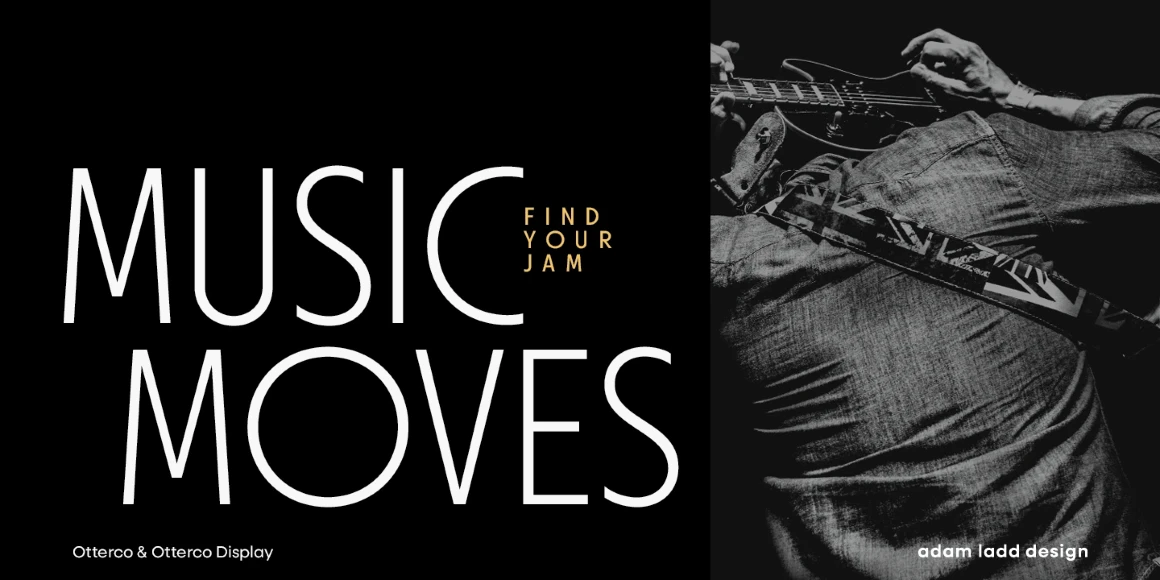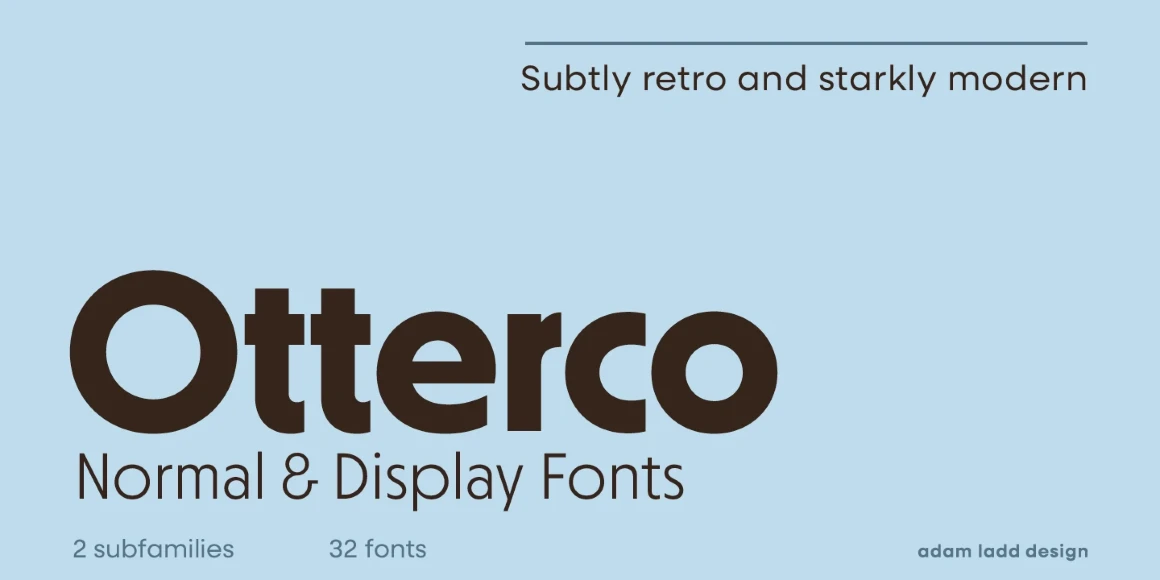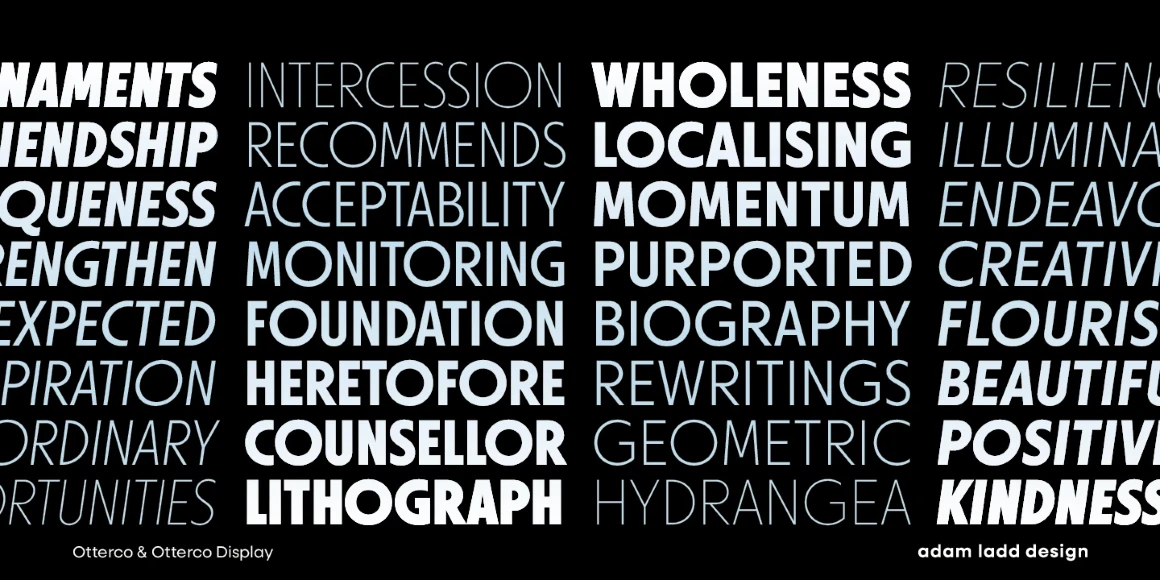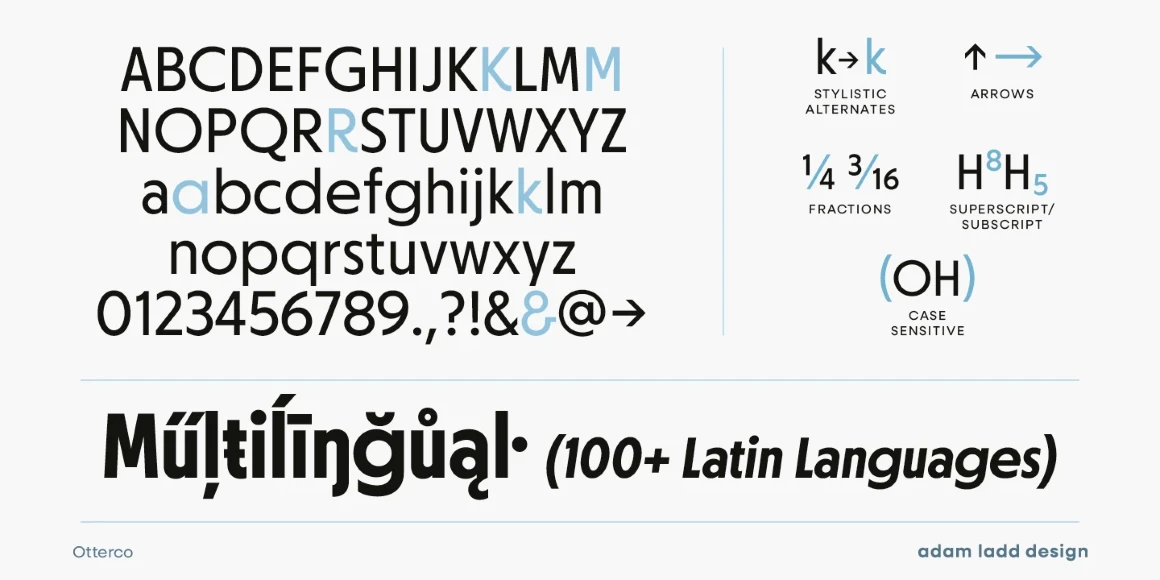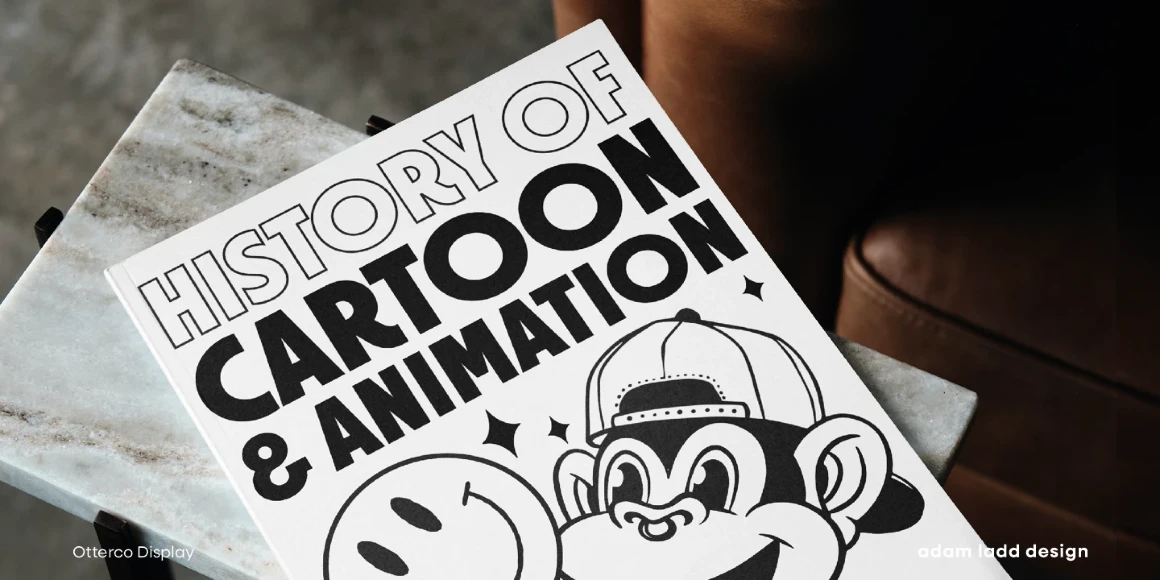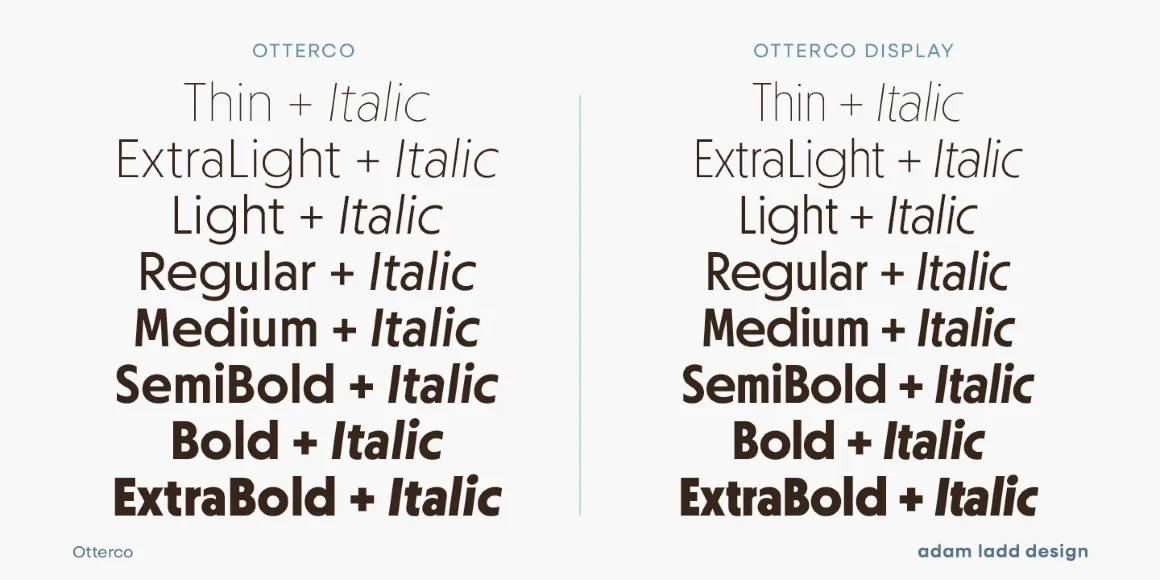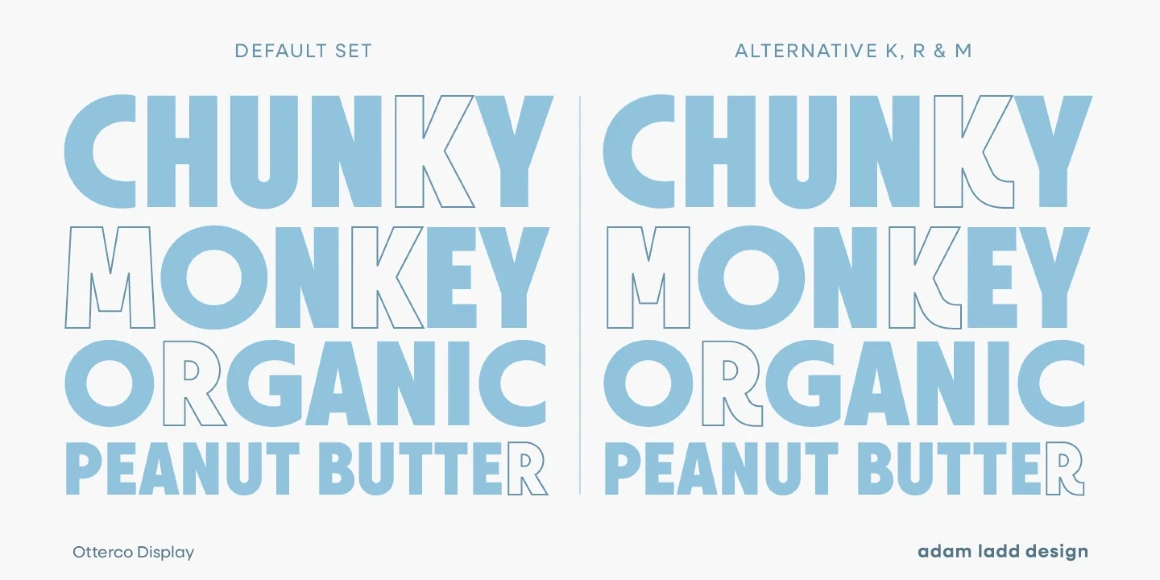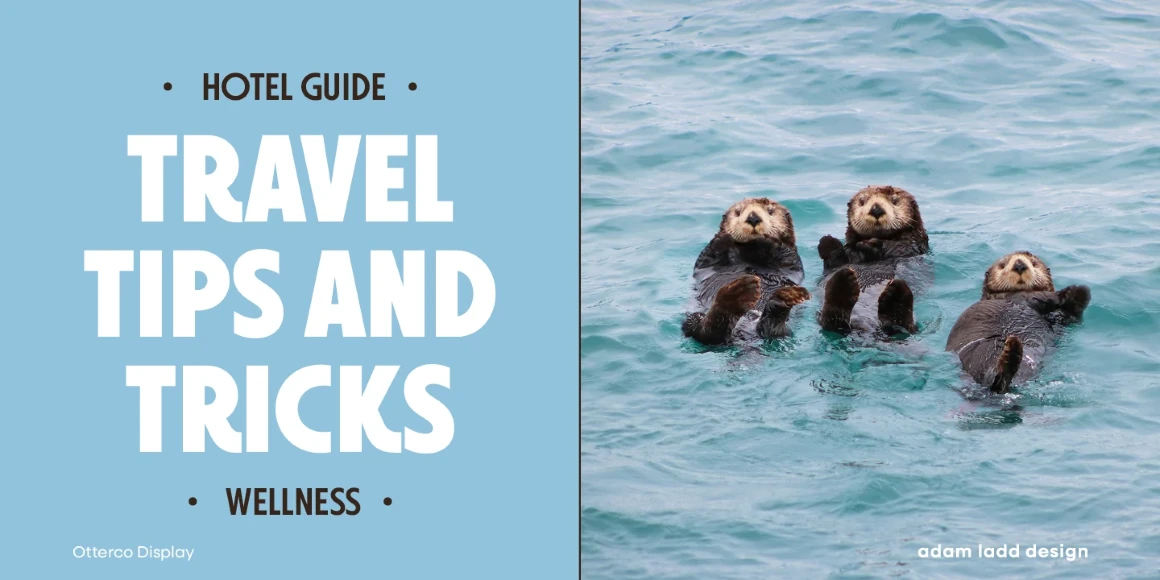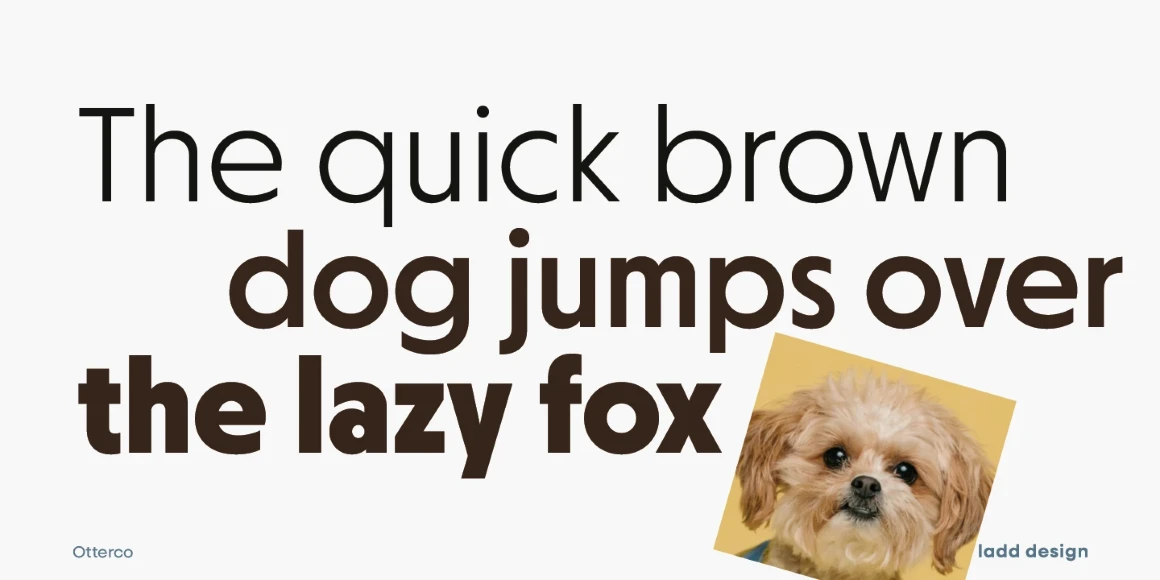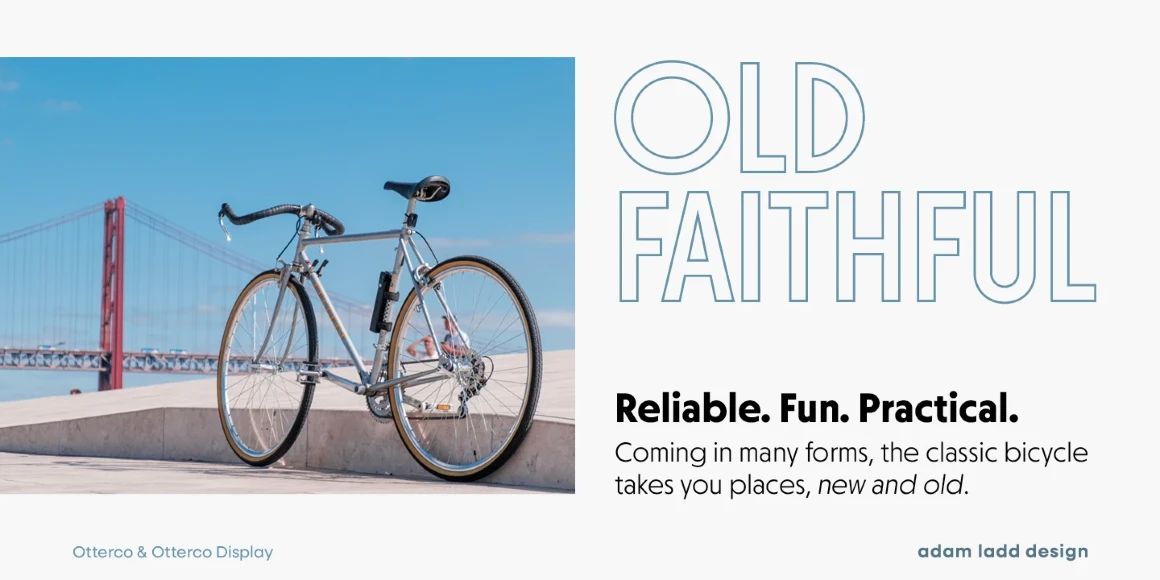
Otterco
By Adam Ladd
Otterco is a theatrical geometric sans in the spirit of the early 20th century. The design leans toward the subtly retro and starkly modern qualities that give it drama and panache. Otterco Display has a nuanced rhythm created by varied round and narrow characters combined with tighter spacing — useful for fierce, attention-getting headlines. On the other hand, Otterco Normal incorporates less width contrast, large x-height, and looser spacing — perfect for book captions and large billboards.